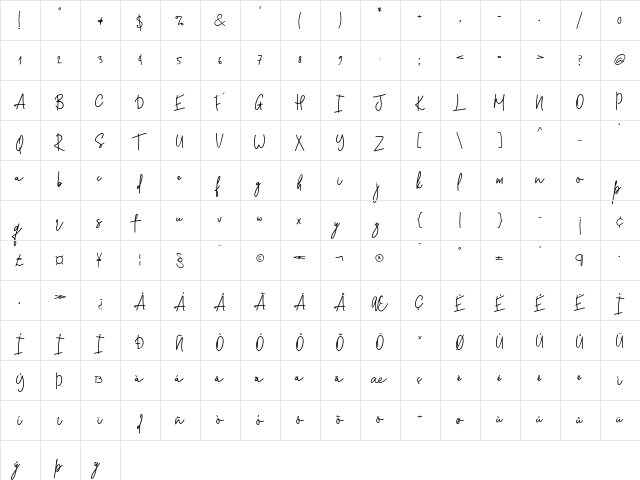
Stone Soul Regular
Design Context for Stone Soul Typeface
Stone Soul is a composed and adaptable typeface that performs quietly and consistently across a wide range of design contexts.